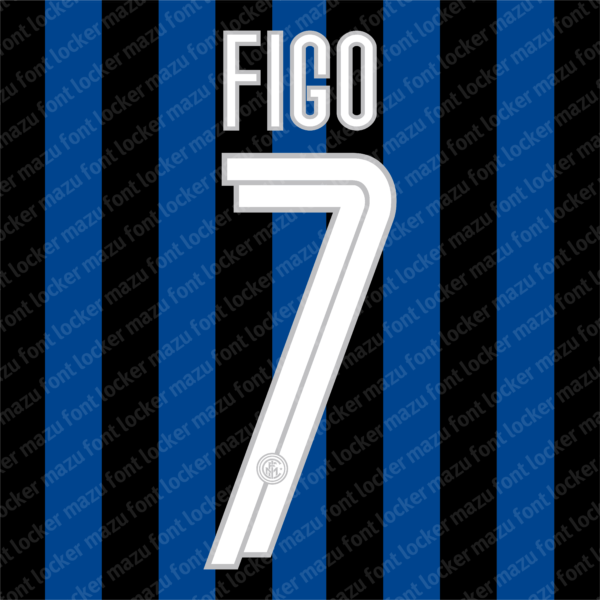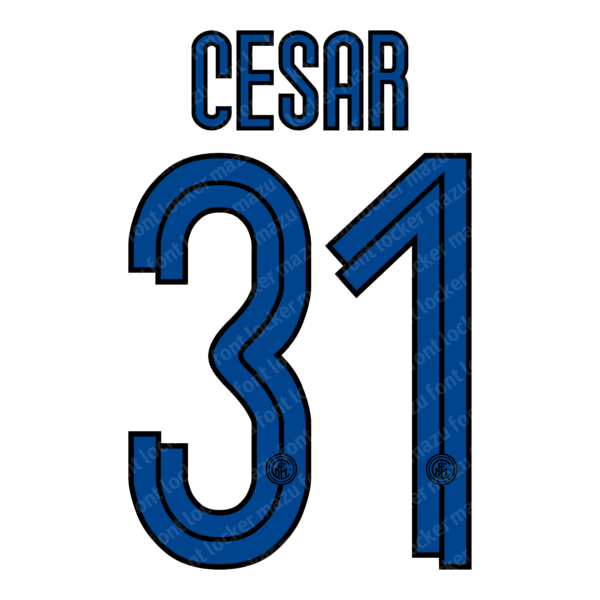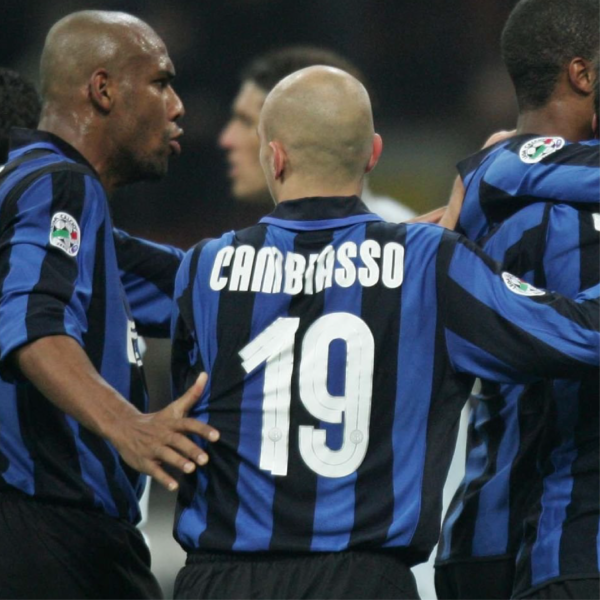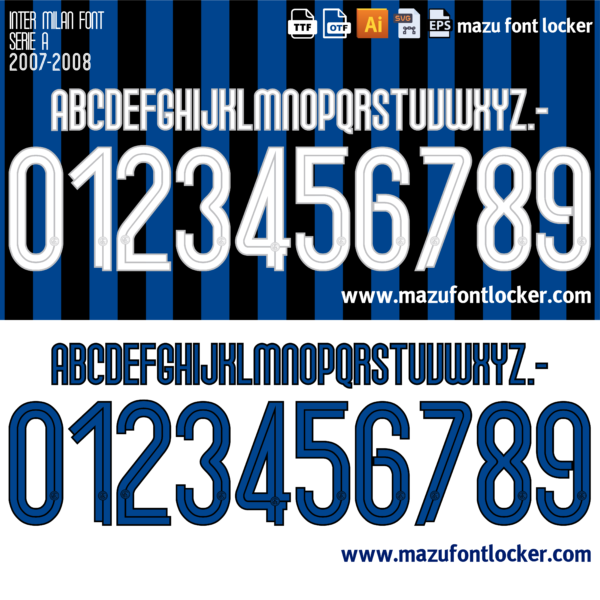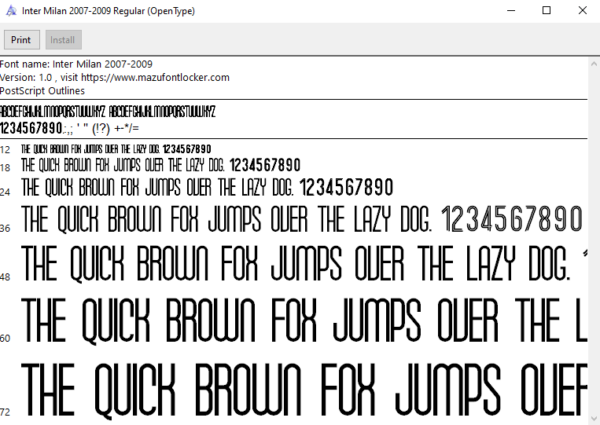
Inter Milan 2007-2008 Font Vector – Epic Nerazzurri Masterpiece of Glory
Download Inter Milan 2007-2008 Font today and unleash the legendary spirit of one of football’s greatest campaigns. Inter Milan 2007-2008 Font is a premium, high-precision football jersey font vector expertly crafted to reflect the fearless identity, glorious heritage, and dominant aura of the mighty Nerazzurri.
Inspired by Inter Milan’s unforgettable 2007-2008 season under Roberto Mancini, featuring their third consecutive Serie A title and the iconic blue-and-black identity, this font delivers a bold, elegant, and commanding visual style that captures the true essence of Italian football excellence. Every letter and number has been meticulously recreated with razor-sharp detail to showcase the unbreakable determination, championship mentality, and unmistakable Nerazzurri pride that defined that historic season.
Built for professional sports designers, football content creators, jersey customizers, sublimation printing, fan merchandise, and premium creative projects, this font is perfect for both digital design and high-quality print production. The clean vector precision ensures maximum sharpness, scalability, and authentic match-day aesthetics across every application.
Celebrate the legacy of Inter Milan. Channel the power of the 2007-2008 champions. Bring the unstoppable spirit of Nerazzurri greatness to life with the Inter Milan 2007-2008 Font.
Inter Milan 2007-2008 Font Vector
The Inter Milan 2007-2008 Font is a premium, high-precision football jersey font vector expertly crafted to embody the fearless identity, glorious heritage, and explosive passion of one of Italy’s biggest and most successful football clubs.
Inspired by Inter Milan’s legendary warrior spirit, their relentless pursuit of dominance, and historic triumphs in Serie A during the unforgettable 2007-2008 season, this font delivers a bold, aggressive, and majestic visual style that captures the true essence of Italian football supremacy. Every letter and number has been meticulously recreated with razor-sharp precision to reflect the unbreakable determination, championship mentality, and iconic blue-and-black identity that defines the mighty Nerazzurri.
Built for professional sports designers, football content creators, jersey customizers, sublimation printing, fan merchandise, and high-end creative projects, this font excels in both digital and premium print production. Its clean vector quality guarantees maximum sharpness, flawless scalability, and authentic stadium-ready aesthetics in every use.
Celebrate the legacy of Inter Milan. Unleash the power of the Nerazzurri. Bring the unstoppable spirit of the 2007-2008 Inter greatness to life with the Inter Milan 2007-2008 Font.
• Authentic 2007-2008 Inter Milan jersey lettering style
The authentic lettering style helps recreate the classic look of the Inter Milan 2007-2008 kit with professional accuracy.
Unlike generic jersey fonts, this set is designed with a strong focus on authenticity and accuracy. Every detail is based on the original match lettering style used during the 2007-2008, helping designers and collectors create realistic football shirt designs.
This Inter Milan 2007-2008 font vector set is designed for authentic football jersey customization and works perfectly for retro football projects, collector designs, and professional sportswear artwork.